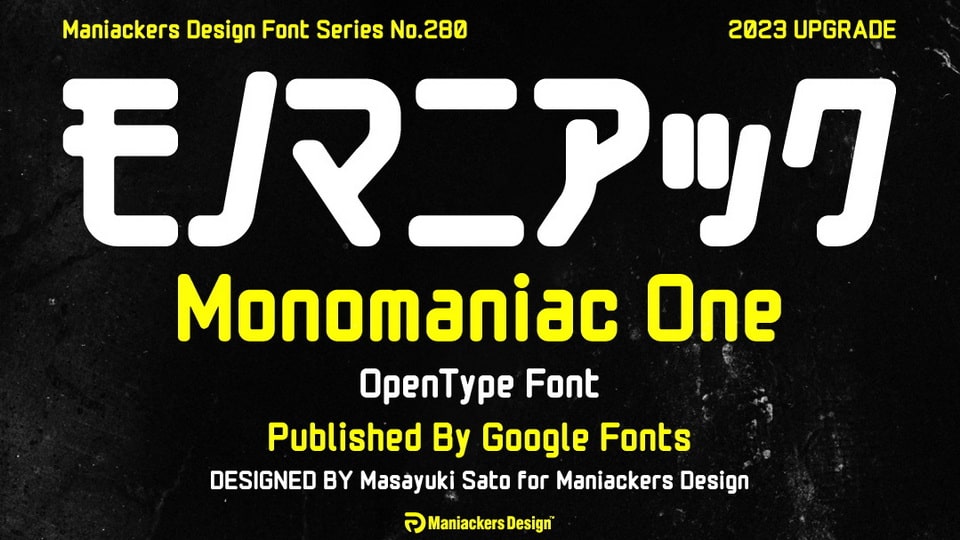
Feb 2, 2025DisplayMonomaniac Font Monomaniac is a bold Japanese sans serif typeface with rounded corners. This font is designed condensed letterform to best fit for vertical typesetting. Font DetailsDesigned by: Maniackers DesignWebsiteLicense: Free for commercial use, OFL Download Monomaniac FontFile size: 56.72 KBCreated: February 16, 2025Updated: February 16, 2025 Download Explore similar fonts Bodygo Font Astron Font Family Vertaz Display Font Crust Cream Font Channel Is Back Font Crochets Font # Bold# Geometric# Rounded More fonts by Maniackers DesignDarumadrop FontSlackside Font